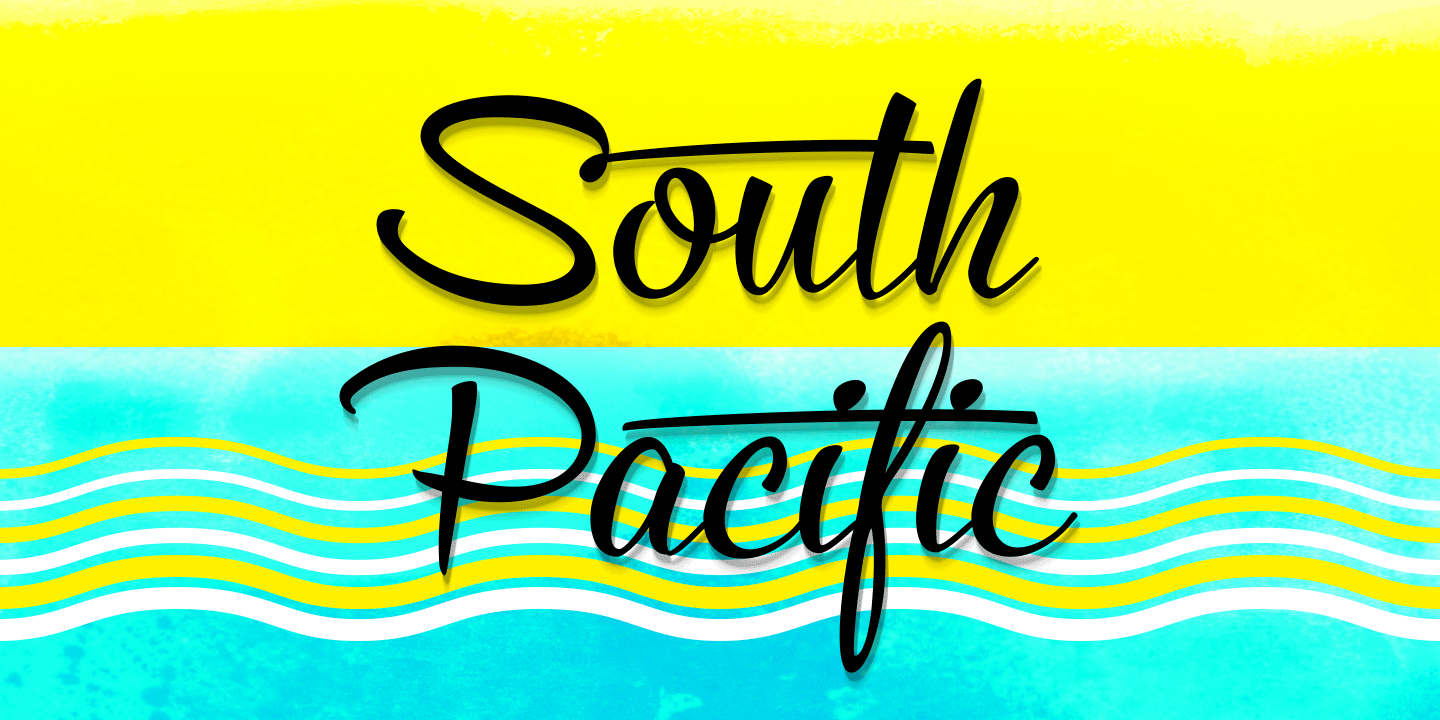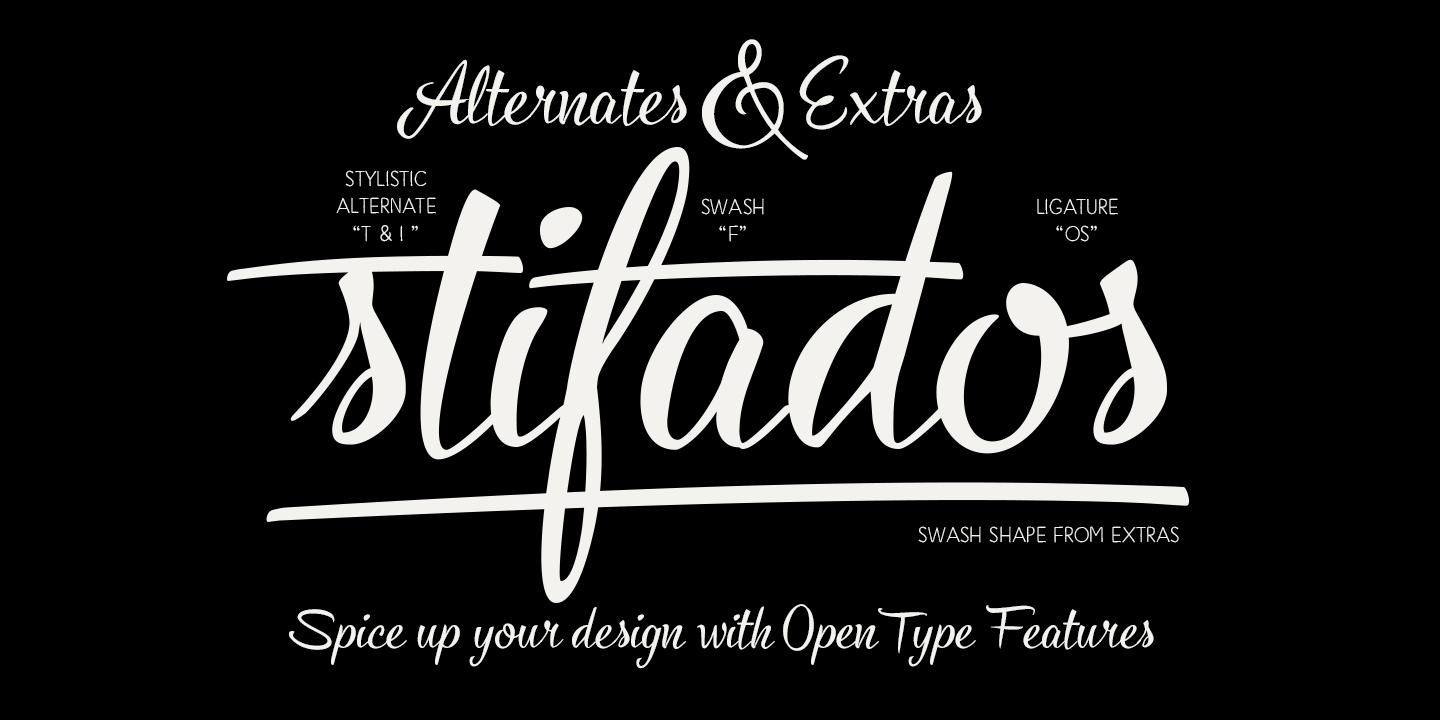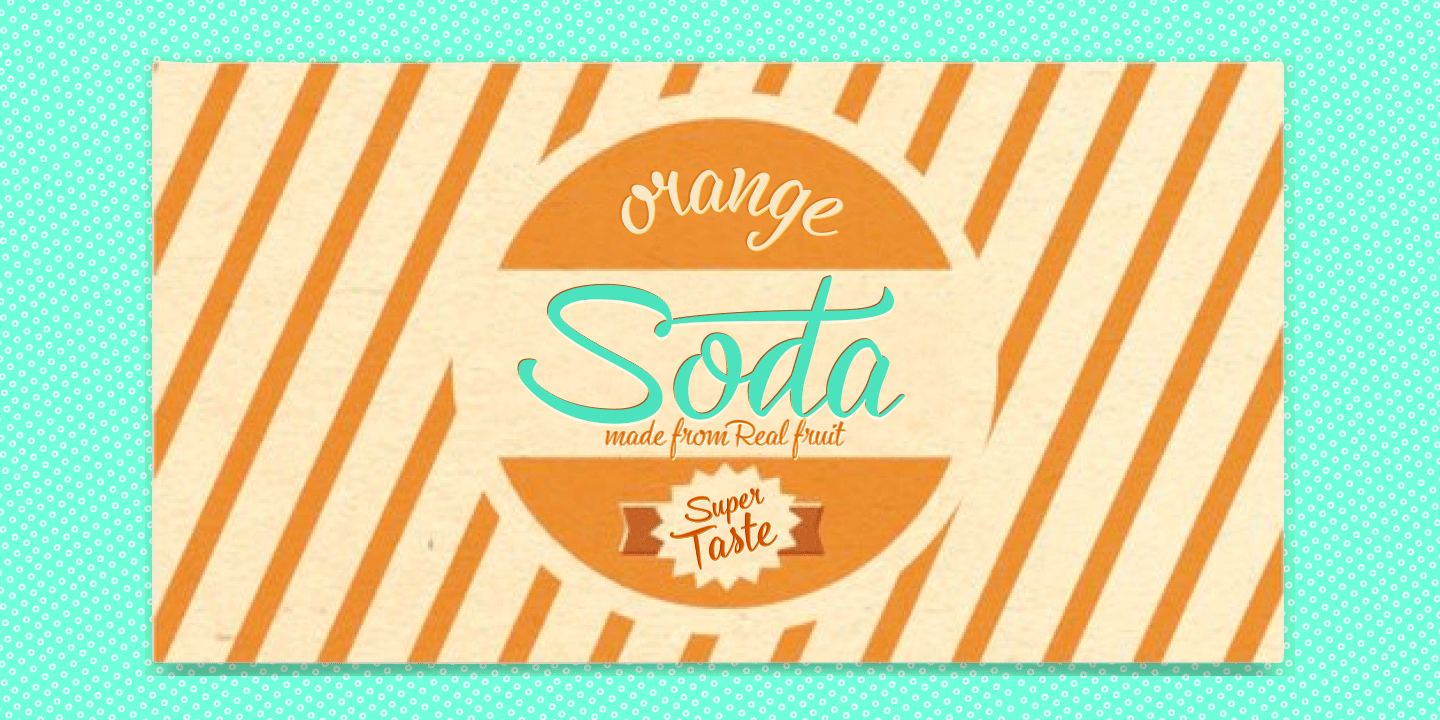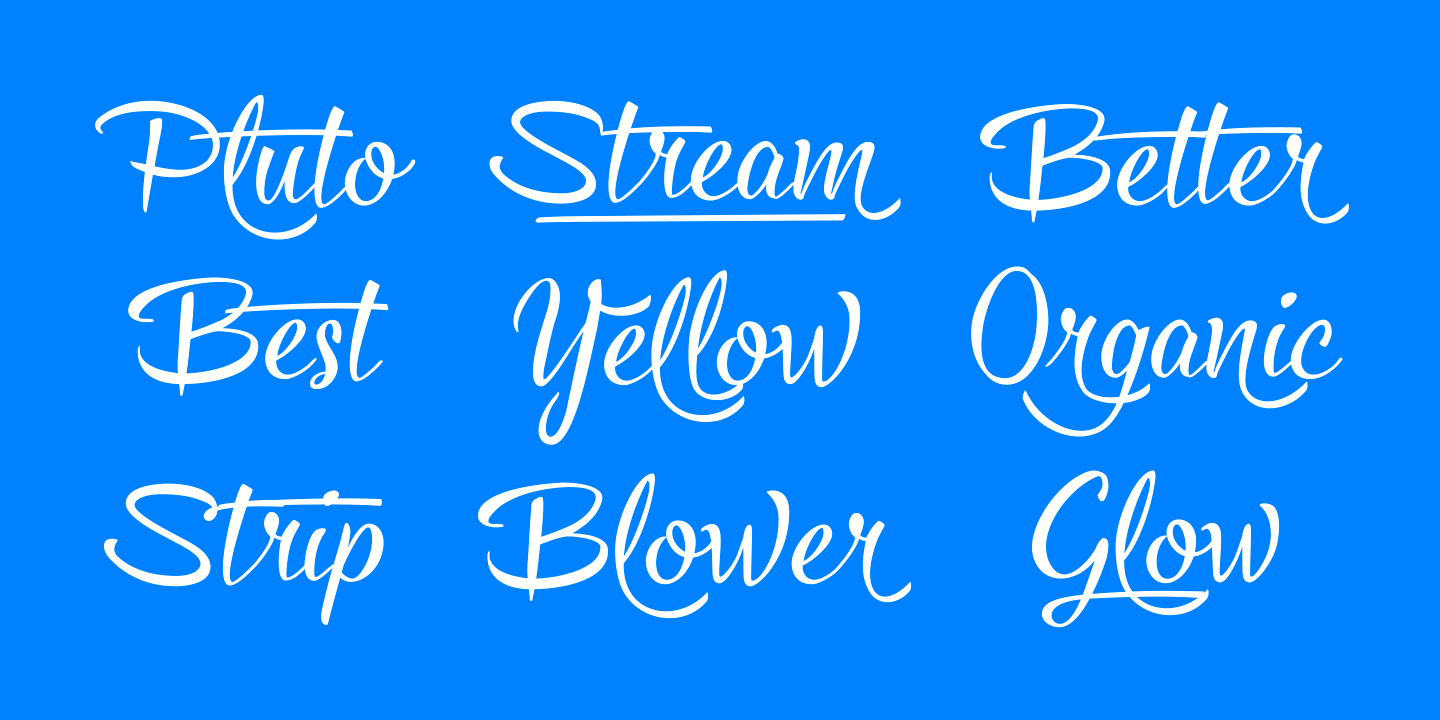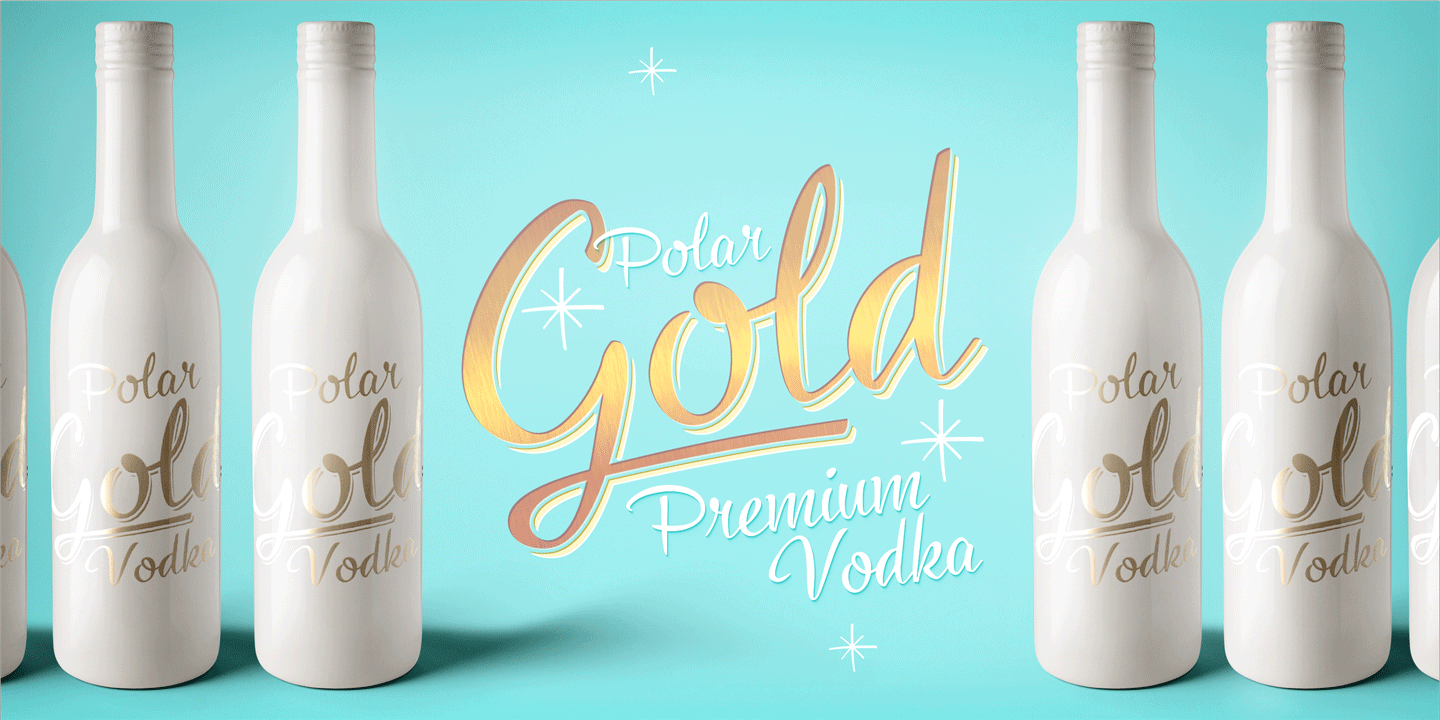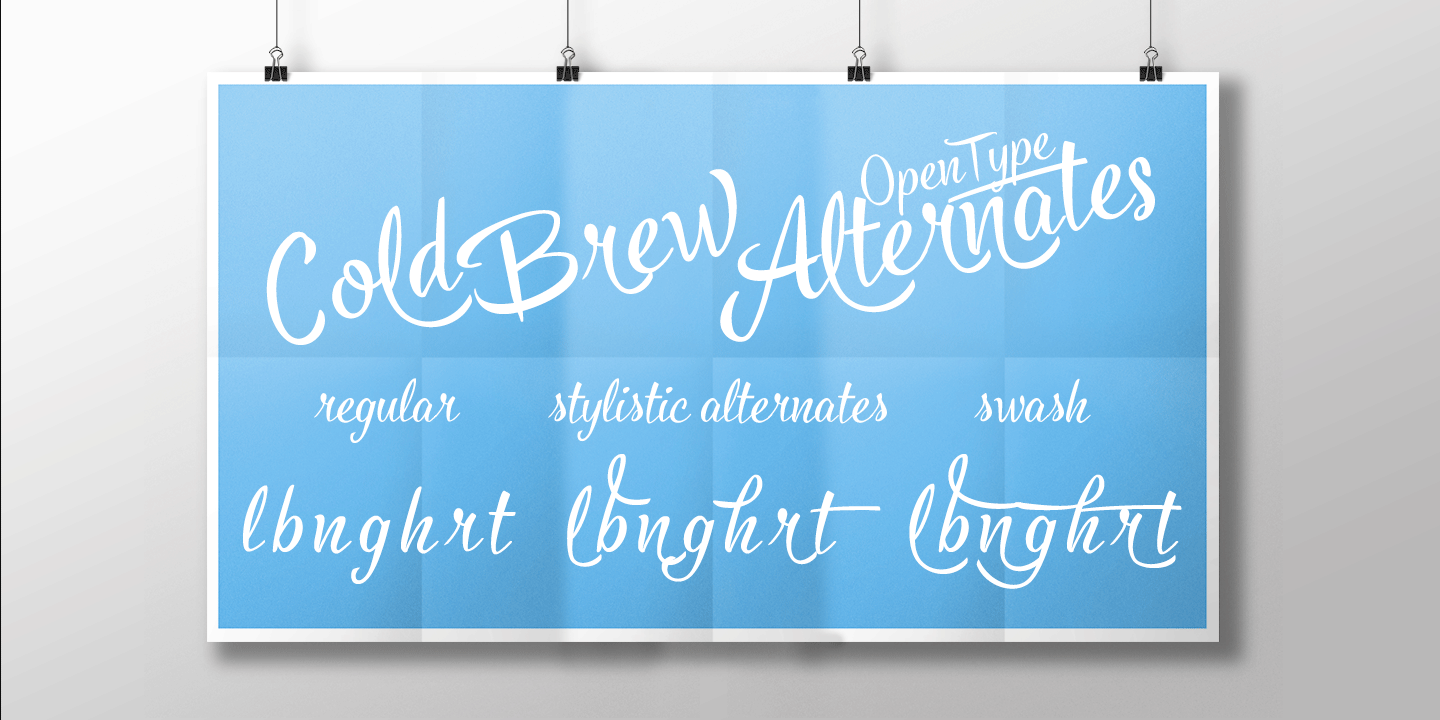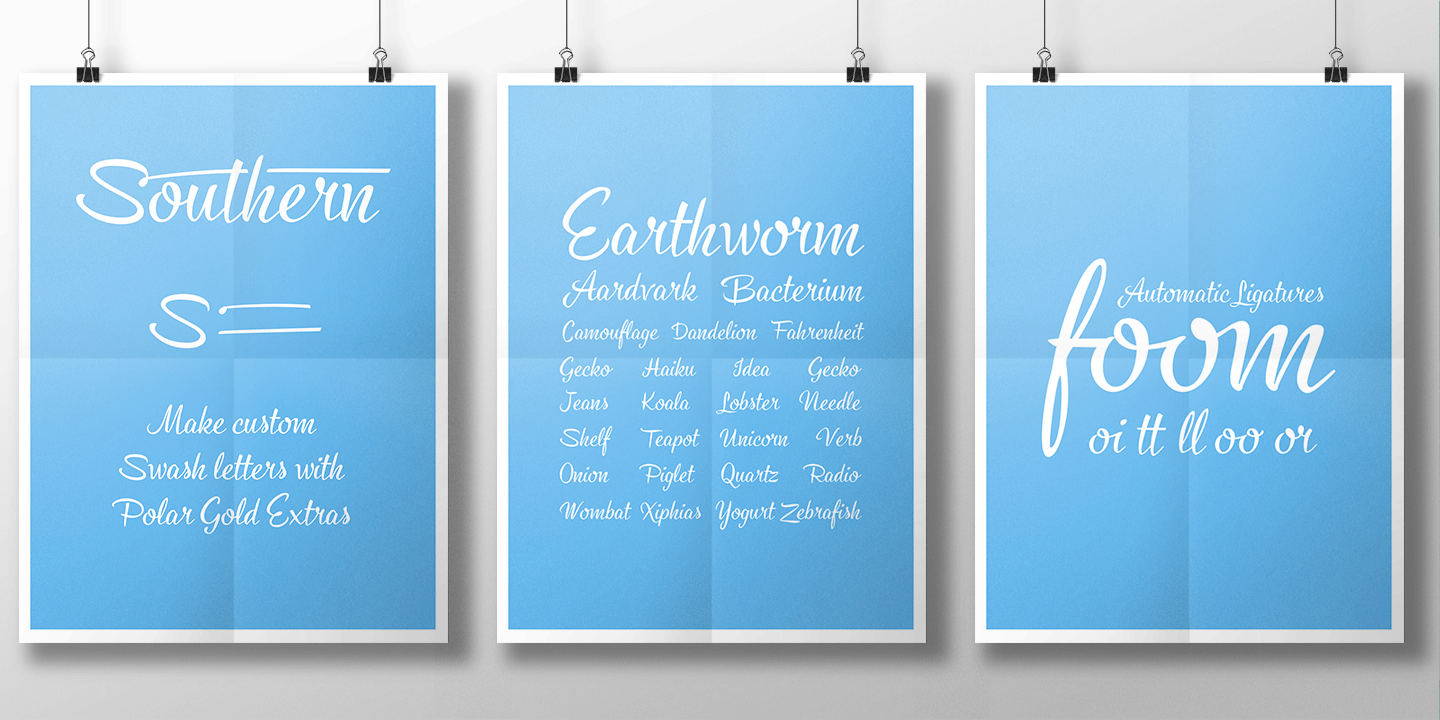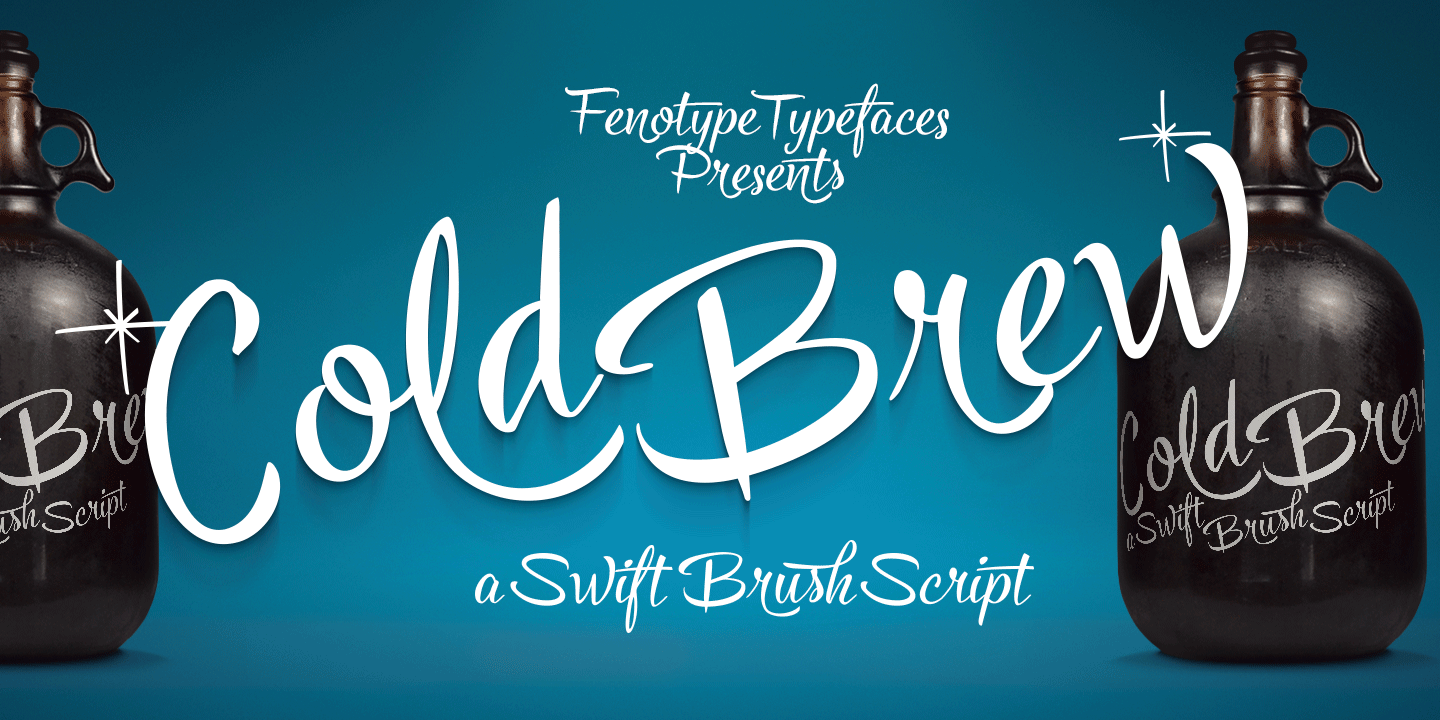
Cold Brew is equipped with OpenType features to give you the tools for custom-looking design: turn on Stylistic Alternates or Swash in any OpenType savvy program for flashier letters or manually select from the Glyph Palette even more fun Alternates.
The Extras is a set of brush strokes and swashes designed to support the font. You can, for example, easily create custom letters by combining the swash shapes from Extras with the letters. Combine Extras with uppercase letters or use them as underline or just plain extra strokes to emphasize your words. So much fun!